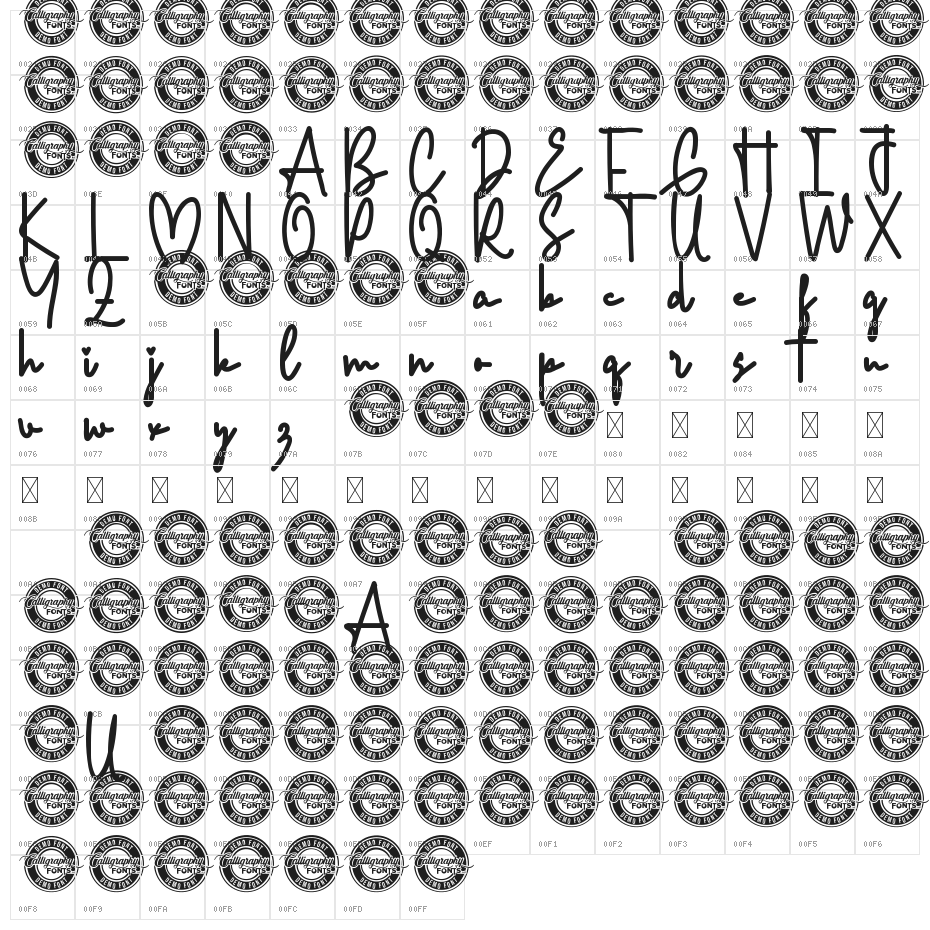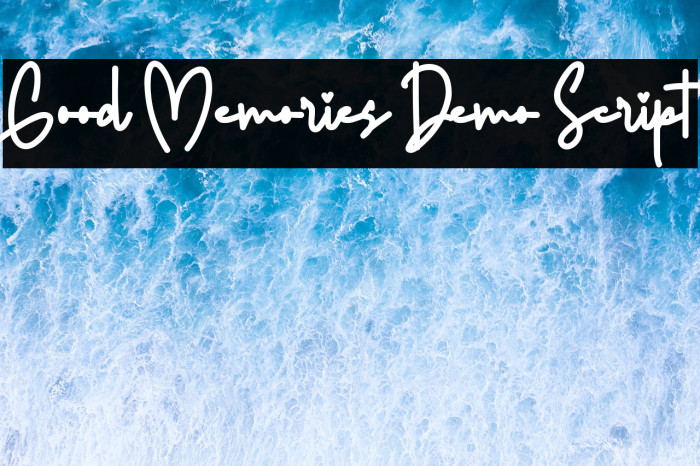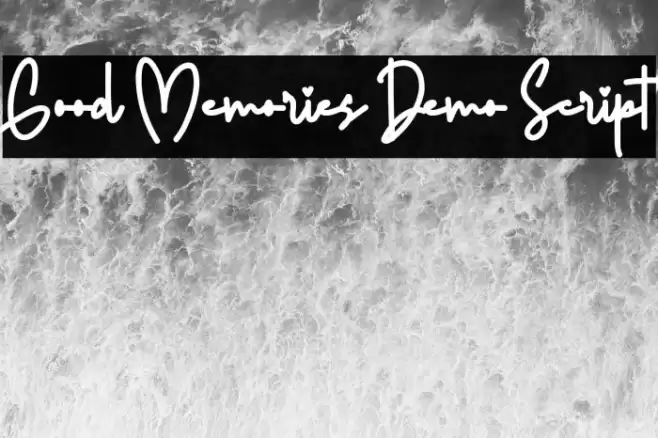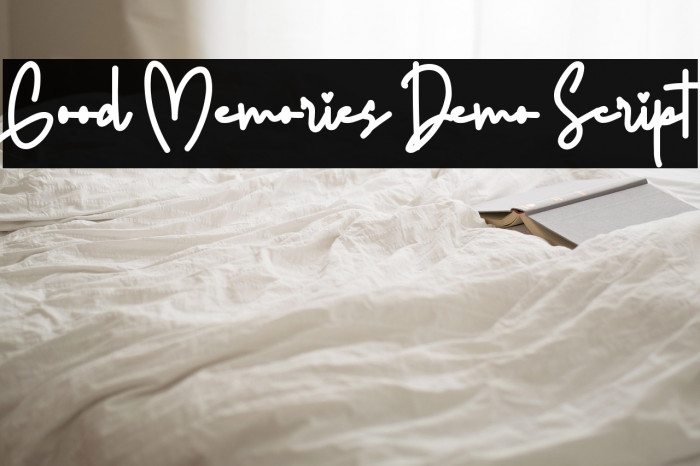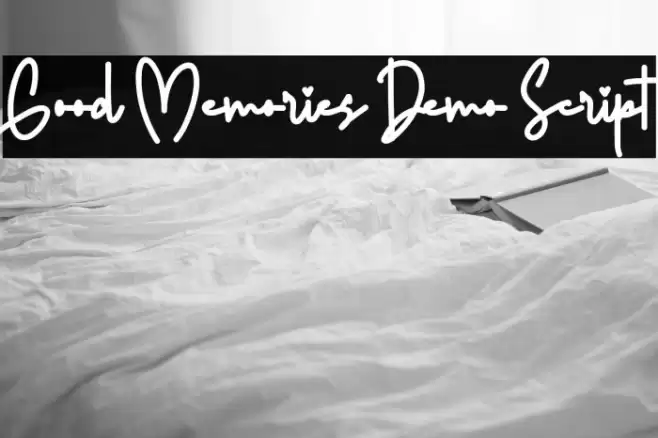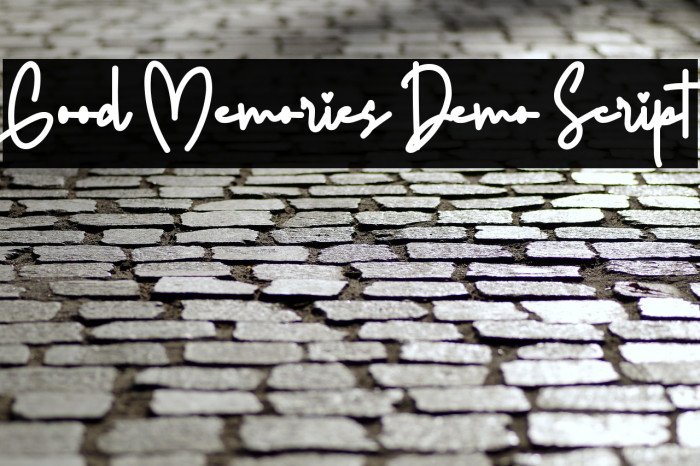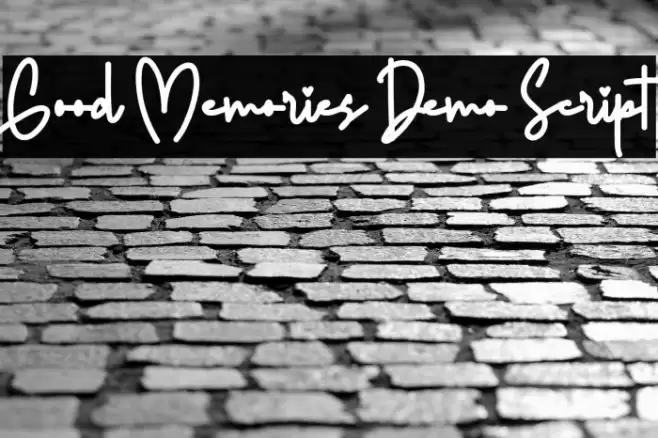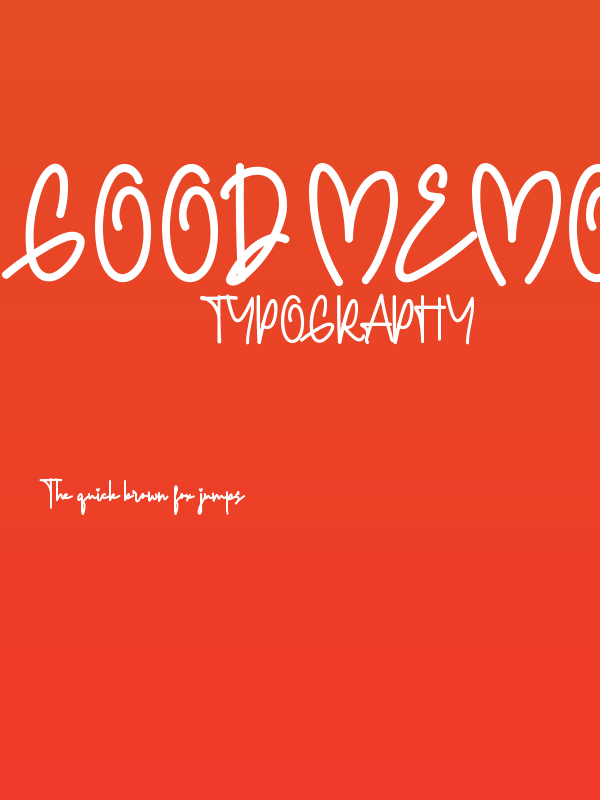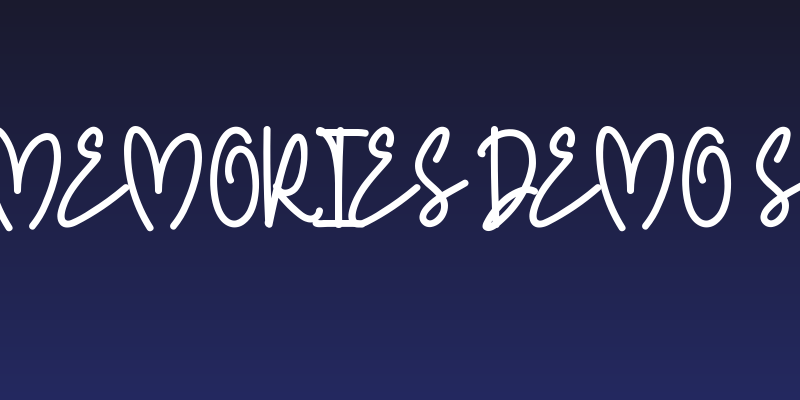
Good Memories Demo Script Font
Good Memories Demo Script Description
This font features a playful and whimsical script style, characterized by its flowing, handwritten appearance. The uppercase letters are tall and slightly narrow, with a casual, relaxed feel. The lowercase letters maintain a consistent flow, with some characters featuring unique loops and swirls that add to its charm. The font includes a variety of special characters, enhancing its versatility. Its overall design exudes a sense of fun and creativity, making it ideal for projects that require a personal touch.